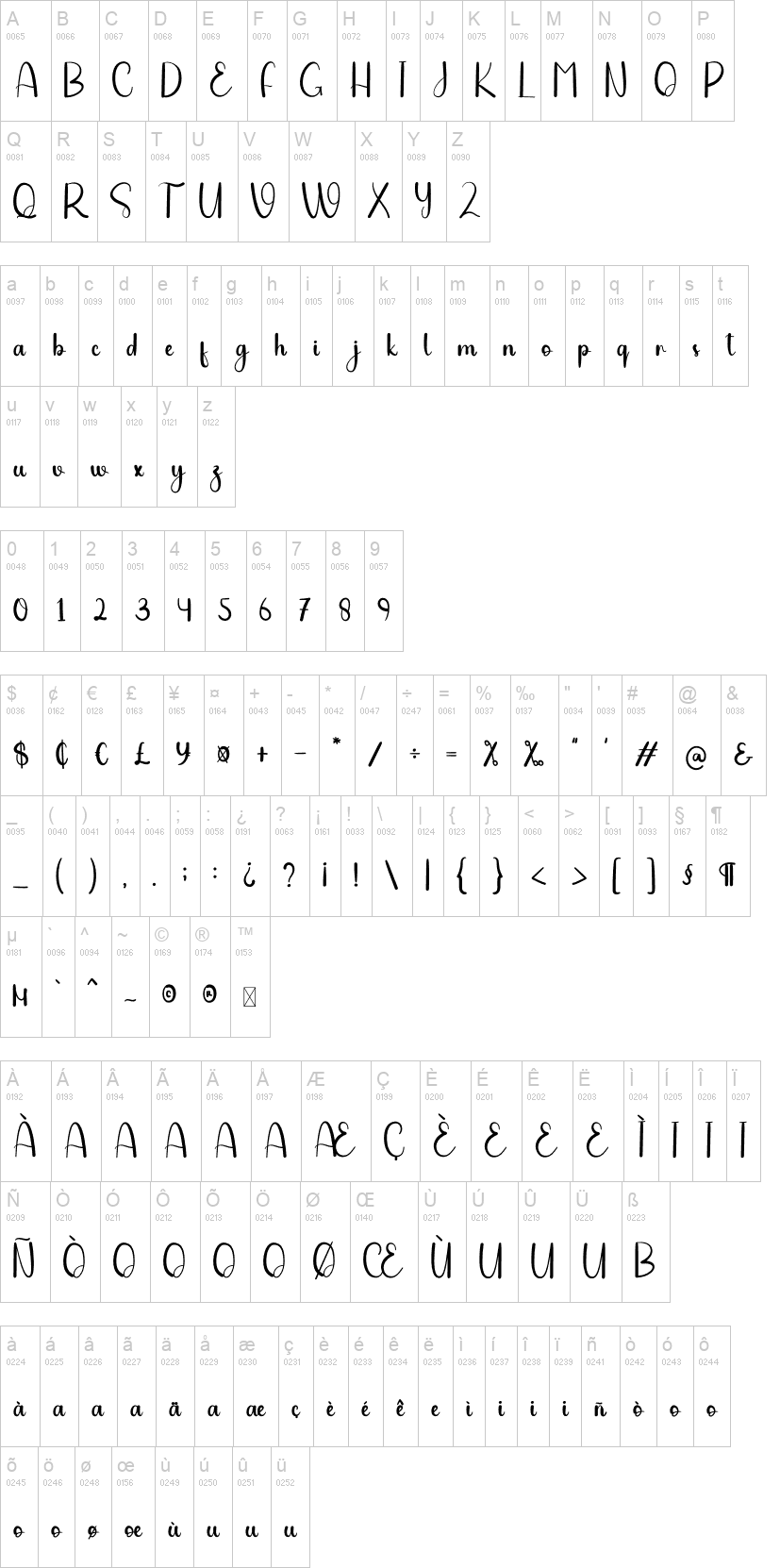
Food Chicken
Note of the authorthis is a sweet and friendly handwritten display font. Cute and fun, this font is ideal for writing wedding invitations, cards, or any other design that might need a playful touch!